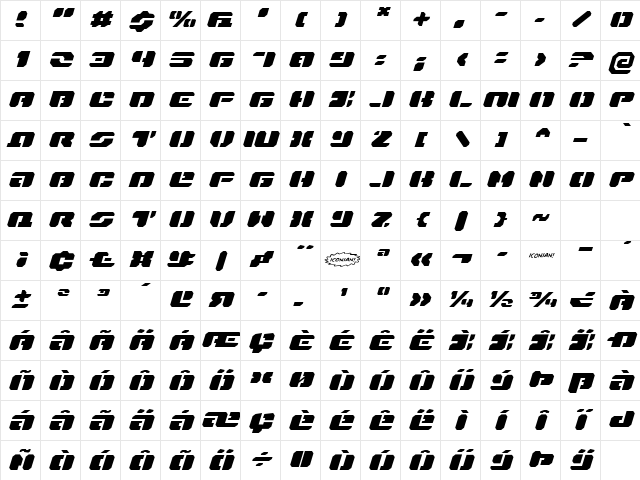
Dan Stargate Extra-expanded Italic Free Font
Dan Stargate Extra-expanded Italic
Style: Extra-expanded Italic
Dan Stargate Family
Dan Stargate Extra-expanded Italic
Complete Dan Stargate Extra-expanded Italic glyph index. Displaying only characters natively supported by Dan Stargate Extra-expanded Italic font.
Design Context for Dan Stargate
Dan Stargate is a composed and adaptable typeface that performs quietly and consistently across a wide range of design contexts. The slanted form adds forward momentum and visual energy.